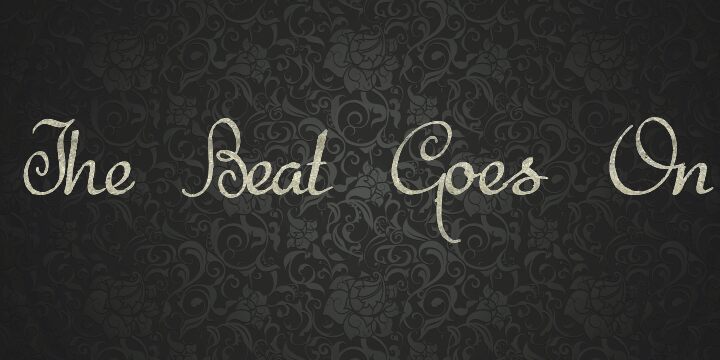
The Beat Goes On by Paulo W. is a free calligraphic script with extravagant loops and a lively, improvised line. Tall strokes sweep above and below the letters, and changing widths give the writing a quick pen-drawn pulse. Its uneven joins keep the forms distinctly personal.
Designers working in music and nightlife will find it especially apt for concert posters and event branding. The looping silhouette can echo a singer's autograph on album packaging, turning the lettering into part of the performer's image. Its loose theatricality also suits fashion promotions and invitations built around expressive, unconventional lettering.